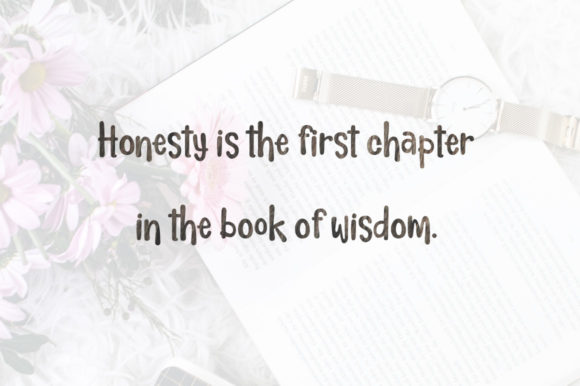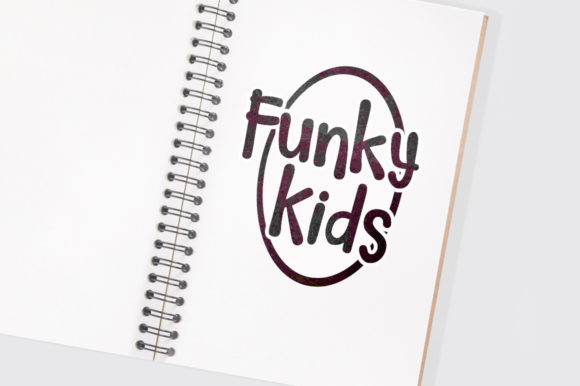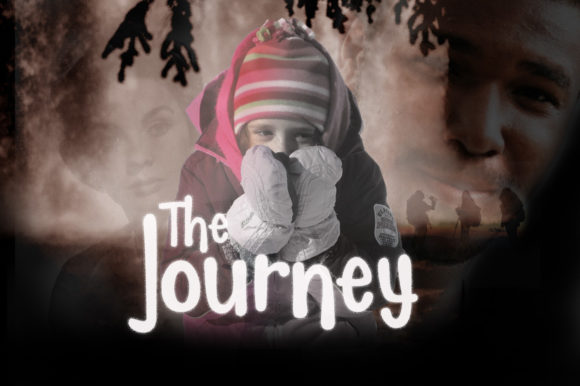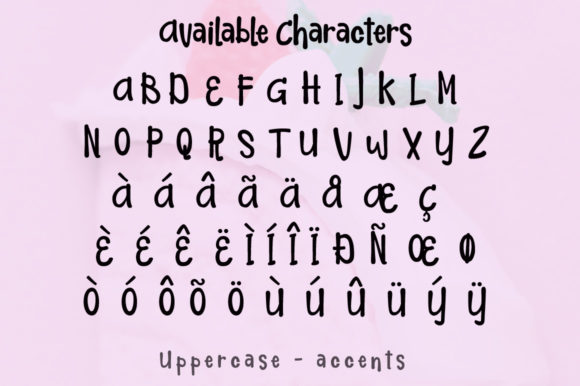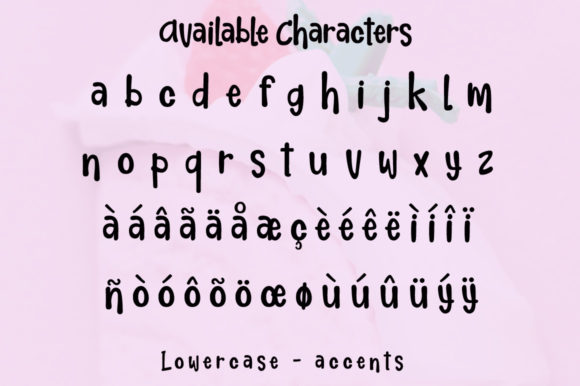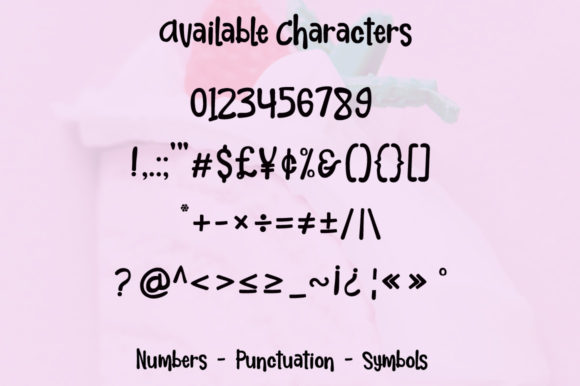
Have you ever sat at your desk, staring at a blank page, trying to come up with the perfect design? You’ve got a great idea, but it’s just missing that special something. You scroll through your font library, searching for the perfect font to bring your vision to life. That’s where the Bonthal Font comes in – a cute and casual handwritten font that’s sure to add a touch of personality to any project.
With its gorgeous swashes and ligatures, the Bonthal Font is incredibly versatile and perfect for designers looking to add a little extra flair to their work. Whether you’re creating graphics for Instagram or calligraphy scripts for DIY projects, this font is sure to turn your ideas into a true piece of art. Its PUA encoding and wealth of special features make it a valuable tool for designers of all levels.
Bonthal Font Key Features
- Unique Characteristics: Bonthal Font is a unique, hand-drawn font with a distinctive, elegant style, featuring intricate details and subtle flourishes.
Bonthal Font Review
Overall, I think the Bonthal font is a decent addition to any designer’s toolkit. Here are some of its strengths and weaknesses:
- The font’s unique, cursive feel is perfect for adding a touch of elegance to headings and titles.
- The high x-height gives the font a sense of balance and stability, making it suitable for body text as well.
- The font’s irregularities and quirks give it a hand-drawn feel that’s hard to replicate with digital tools.
- The font’s irregularities can sometimes make it difficult to read, especially in large blocks of text.
- The font may not be suitable for use in body text where legibility is crucial, due to its high x-height and irregular letterforms.
- The font’s limited character set may make it difficult to use in languages that require a wide range of special characters.
Overall, I think the Bonthal font is a great choice for designers who want to add a touch of elegance and whimsy to their designs. However, it may not be the best choice for projects where readability is paramount.
Tips for Getting the Most Out of Bonthal Font
Use Bonthal Font for creative and artistic projects, such as:
- Typography-based designs
- Handwritten or calligraphic effects
- Artistic or decorative text
Experiment with different font sizes, colors, and styles to achieve unique effects.